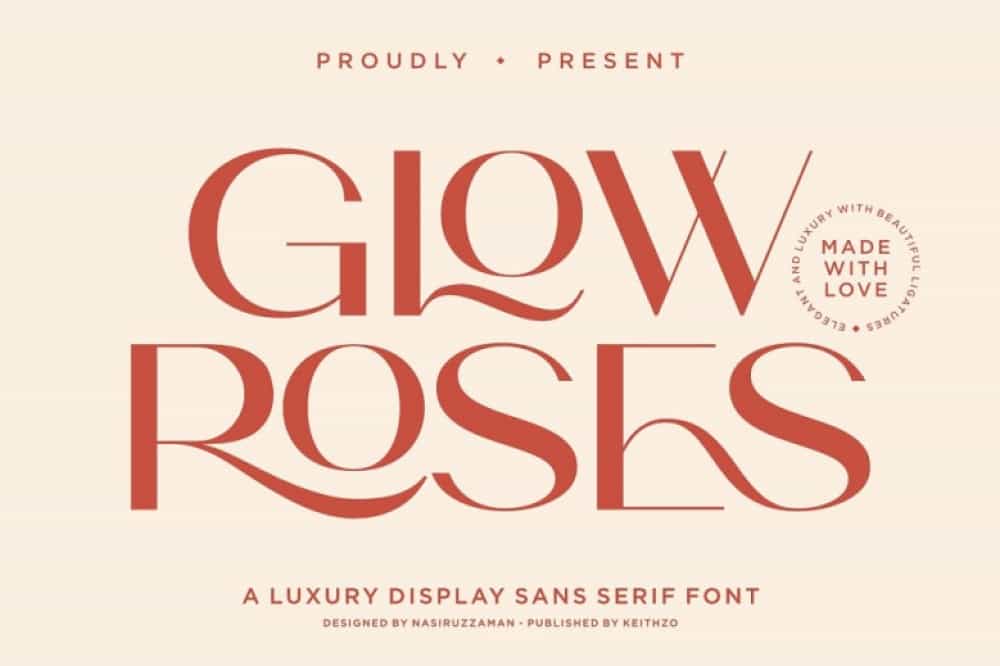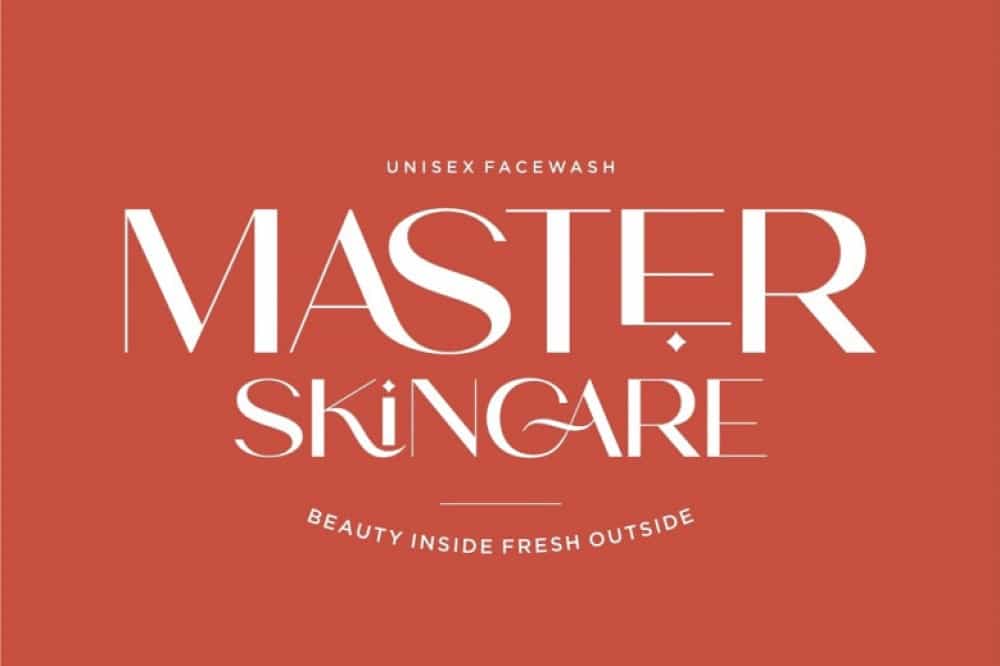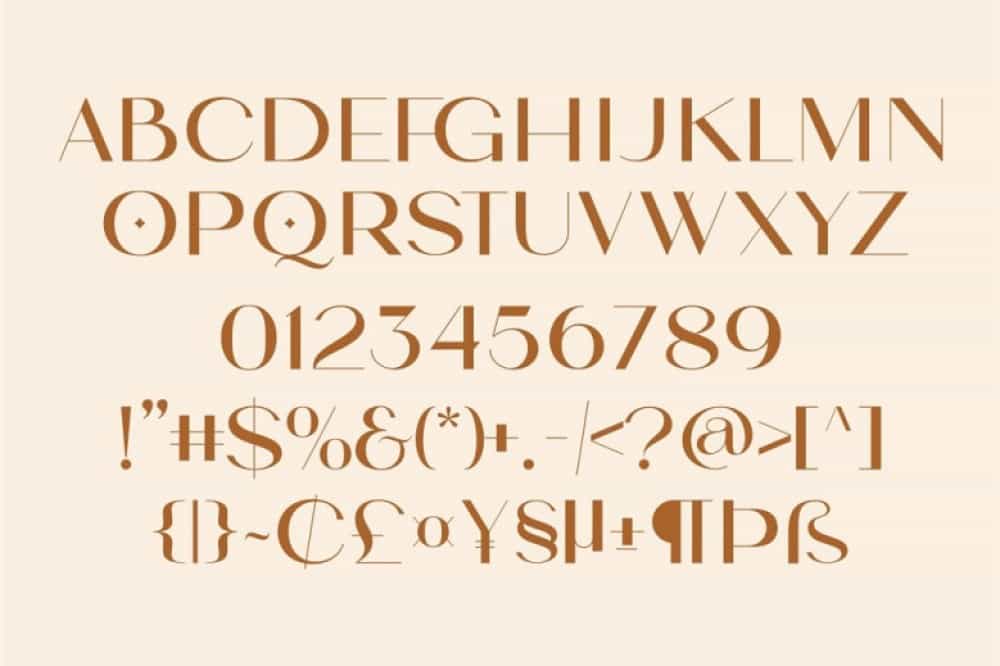
Glow Roses is a clean, sophisticated and highly readable sans serif typeface. Glow Roses classy and elegant curves give it an air of elegance and professionalism which is ideal for any top class design. Do not let this font slip through your fingers for your project that requires elegance and a polished look.